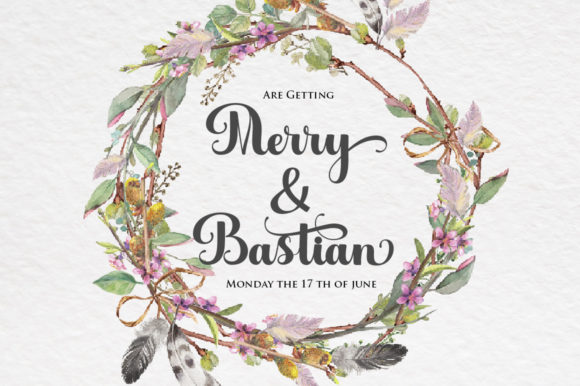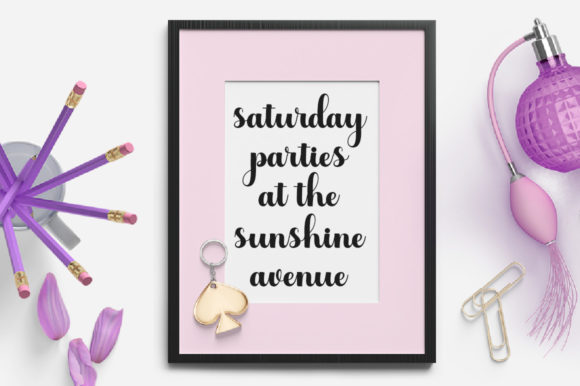
Merry Bright Font
db-ku.com - Script & Handwritten -- Merry Bright is a stylish and bright script font. It looks stunning on wedding invitations, thank you cards, quotes, greeting cards, logos, business cards and every other design which needs a handwritten touch.